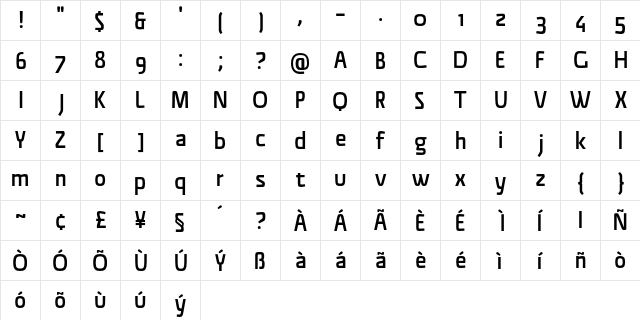
Material Sans Medium
| Foundry | Davide Mottes |
| Designer | Davide Mottes |
Design Context for Material Sans Typeface
Material Sans is a composed and adaptable typeface that performs quietly and consistently across a wide range of design contexts.